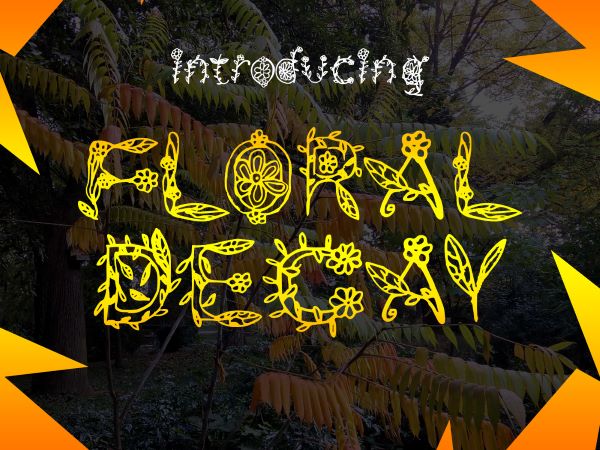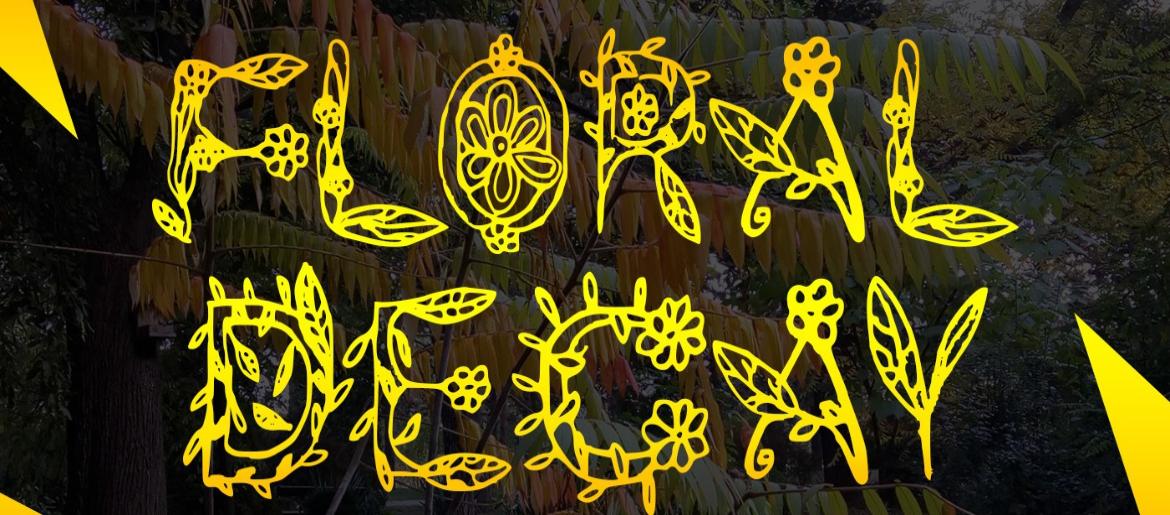
Decay Autumn Font
Floral Decay by Mircea Boboc is a free handwritten calligraphic display typeface that captures the organic, weathered beauty of the autumn season with remarkable sensitivity. Its jaded, earthy letterforms carry the texture of decaying leaves and the kind of imperfect natural elegance that only comes from a calligraphy pen moving with genuine feeling across a surface. As the characters blend into words, they evoke the quiet melancholy of floral arrangements losing their form — beautiful precisely because of their decay. Free for personal and commercial use.